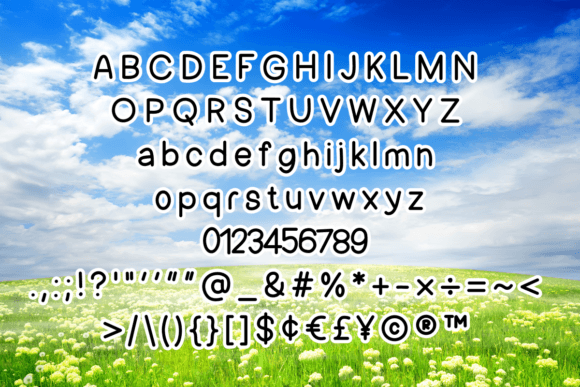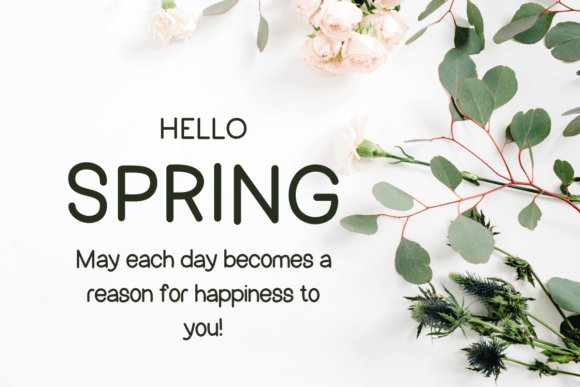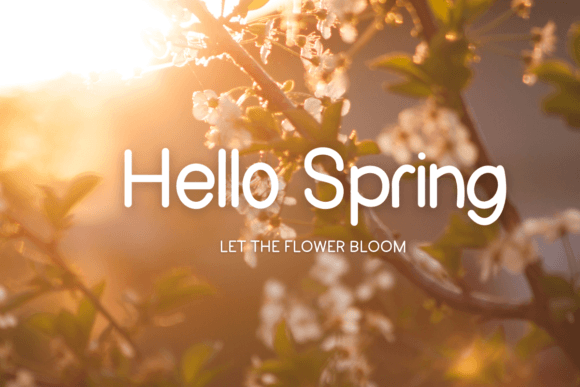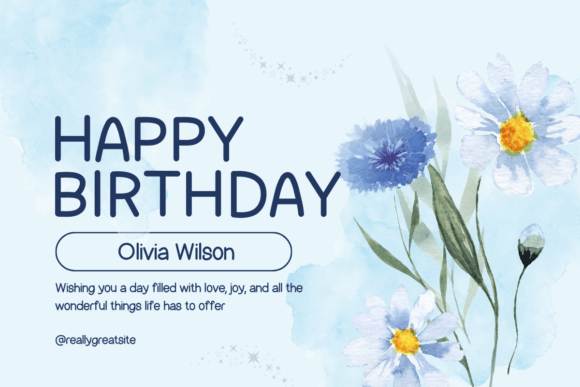
Introduction to Cute Spring Font
Have you ever found yourself stuck in a creative rut, scrolling through design inspiration boards and feeling like nothing sparks your imagination? That was me last week, until I stumbled upon the enchanting Cute Spring Font. Its whimsical charm instantly lifted my spirits and got me excited about my next project. With its natural and unique style, this font is the perfect addition to any design.
What makes the Cute Spring Font truly special is its versatility. Whether you’re working on a branding project, creating a social media graphic, or designing a greeting card, this font is sure to bring a touch of warmth and friendliness to your design. Plus, it’s available for free download, making it an excellent resource for designers on a budget.
Key Features of Cute Spring Font
- High-quality design: The Cute Spring Font is a beautifully crafted font, perfect for creative projects that require a touch of elegance and whimsy.
- Transparent background: The Cute Spring Font features a transparent background, allowing for seamless integration with any design or creative project.
- Large character set: The font includes a large character set, including uppercase and lowercase letters, numbers, and special characters, making it suitable for a variety of creative projects.
- High-resolution design: The Cute Spring Font is designed at a high resolution of 300 DPI, ensuring that it looks crisp and clear on both digital and print materials.
- Perfect for spring and Easter-themed designs: The font’s unique characteristics and design make it an ideal choice for spring and Easter-themed creative projects, such as invitations, greeting cards, and social media graphics.
Honest Review: Cute Spring Font
I recently had the chance to try out the Cute Spring Font, and I’m excited to share my honest thoughts with you. This free download is perfect for anyone looking to add a touch of whimsy to their creative project. The high quality of the font makes it stand out, with intricate details that really pop.
- ✨ The font is super versatile and can be used for a variety of design projects, from greeting cards to website headers.
- ✨ The transparent background option makes it easy to layer the font over different images and textures.
While the Cute Spring Font is a great addition to any design resource library, there are a few limitations to keep in mind:
- ⚠️ The font is only available in a few different weights and styles, which may limit its versatility for some users.
- ⚠️ The font may not be suitable for all types of projects, such as technical writing or formal documents.
Overall, I’m really impressed with the Cute Spring Font and would highly recommend it to anyone looking for a fun and creative font to add to their design arsenal.
Cute Spring Font
Tips for Getting the Most Out of Cute Spring Font
For optimal results, use the Cute Spring Font in a design project with a transparent background. This will allow the font to seamlessly integrate with your design. Experiment with different font sizes and styles to find the perfect fit for your creative project.
The Cute Spring Font is a versatile design resource suitable for various creative projects, including greeting cards, social media graphics, and branding materials. Its high-quality design and transparent background make it an ideal choice for designers seeking a unique and visually appealing font.